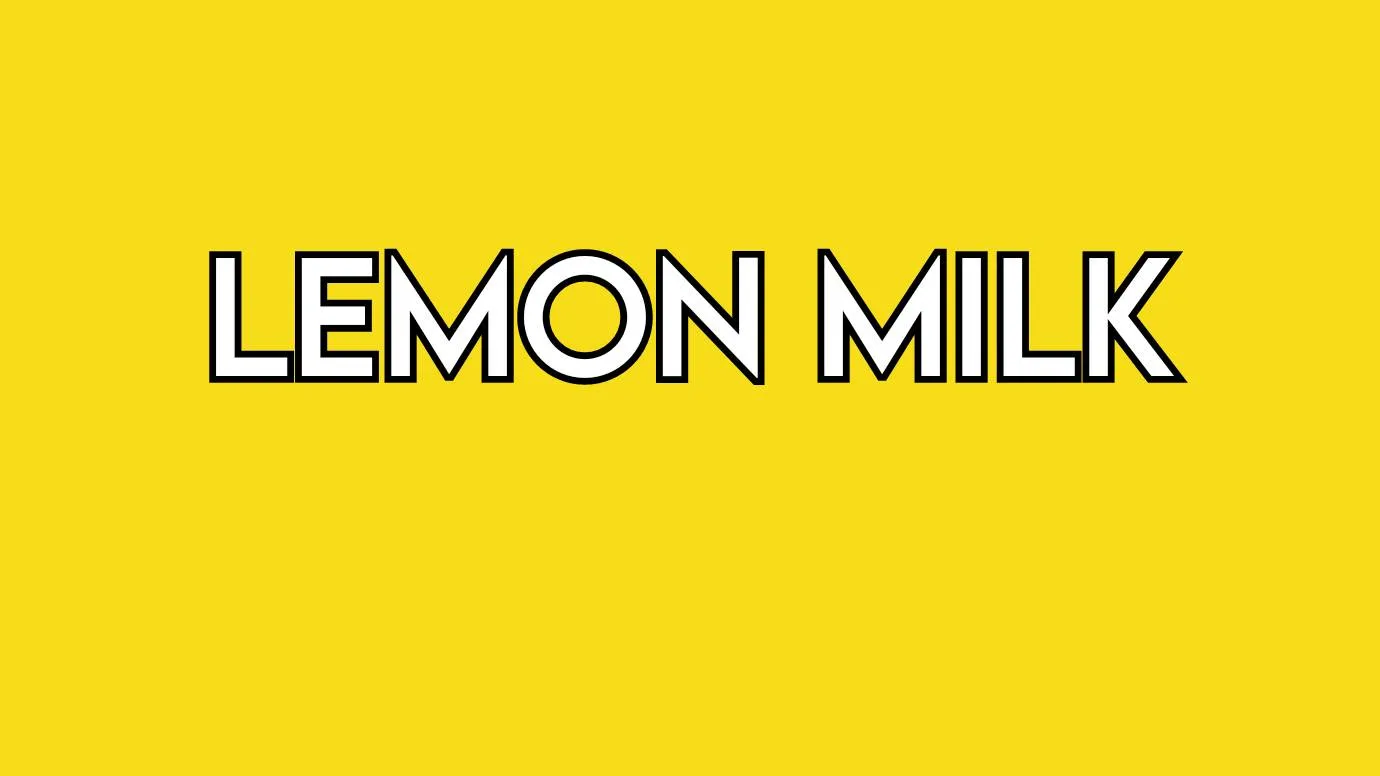
Lemon Milk is a exceptional sans-serif font that features various stroke thicknesses and weights, utilizing these can assist in infusing your designs and content with a mid-century architectural vibe.
You can easily see the use of this typeface on a number of different websites and when this font is used with campground font this will provide the distinctive sharp corners and then this used with a light stroke it will become great.
TypeSans Serif